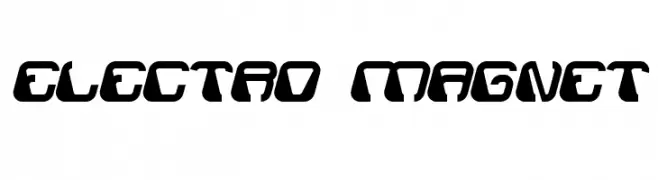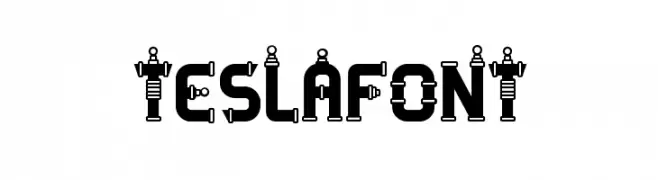
A bold, geometric font with a futuristic and mechanical aesthetic.
A bold, geometric font with an industrial, steampunk aesthetic.
A bold, angular font with a mechanical, steampunk-inspired design.
( Fonts by Hailey Mott )
A bold, geometric font with a mechanical, stencil-like design.
A bold, blocky font with a mechanical, industrial design.
( Fonts by Chris Vile )
A rugged, industrial font with a distressed, mechanical appearance.
A bold, geometric font with a futuristic and mechanical style.
A bold, futuristic font with angular, geometric shapes and a mechanical feel.
A futuristic, geometric font with a structured and mechanical appearance.